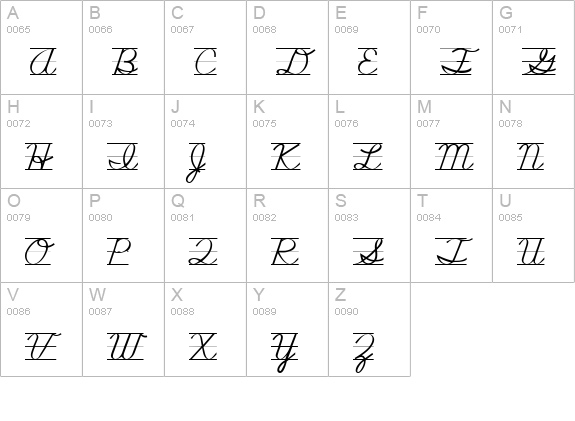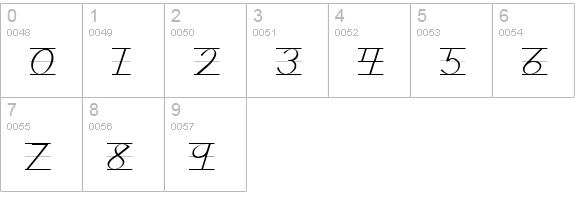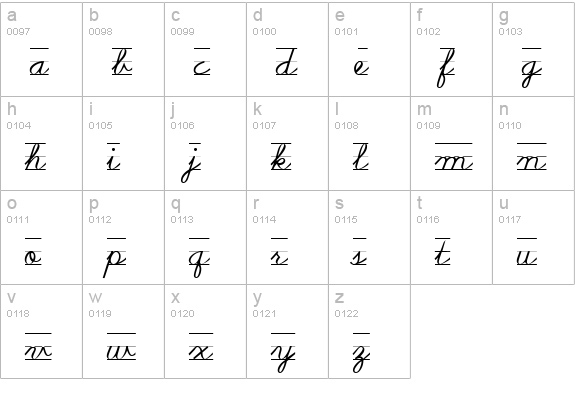
NealCurieRuledSH Font Details
NealCurieRuledSH is a beautifully crafted font that exudes elegance and sophistication. With its unique ruled design, this font adds a touch of creativity to any project. The clean lines and intricate details make it perfect for use in invitations, logos, branding, and more. What sets NealCurieRuledSH apart is that it is not only visually stunning but also versatile in its application. Whether you are working on a modern or traditional design, this font will elevate your work to the next level. Best of all, NealCurieRuledSH is free to download at FontsMarket.com. This means you can easily access this stunning font and use it in your projects without any cost. Don't miss out on the opportunity to enhance your designs with this exceptional font. Download NealCurieRuledSH today and unleash your creativity!